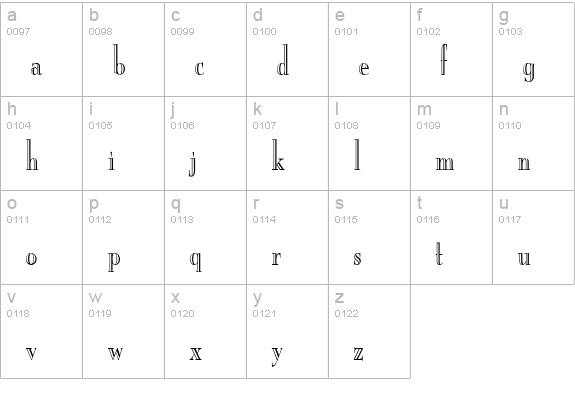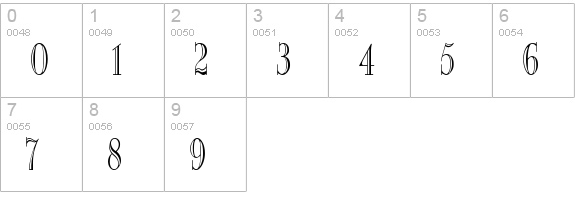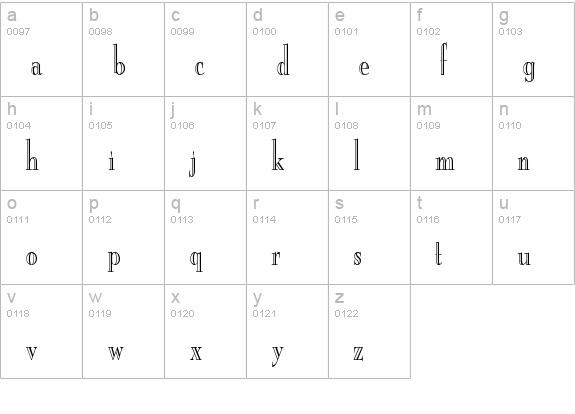
New Eng. Engr. Condensed Normal Font Details
New Eng. Engr. Condensed Normal is the standard, neutral, condensed-width variant in the New typeface family \xE2\x80\x94 well suited to general body text, paragraphs, and standard typographic work.
New Eng. Engr. Condensed Normal is a sleek and elegant font that is perfect for adding a touch of sophistication to your design projects. Its condensed form allows for efficient use of space while still maintaining readability. This versatile font is ideal for a wide range of applications, from branding and advertising to editorial design and packaging. The best part? New Eng. Engr. Condensed Normal is available for free download at FontsMarket.com. Whether you're a designer looking to elevate your projects or a student working on a creative assignment, this font is a valuable addition to your toolkit. Don't miss out on the opportunity to enhance your designs with this stylish and professional typeface. Download it today and start creating with New Eng. Engr. Condensed Normal!